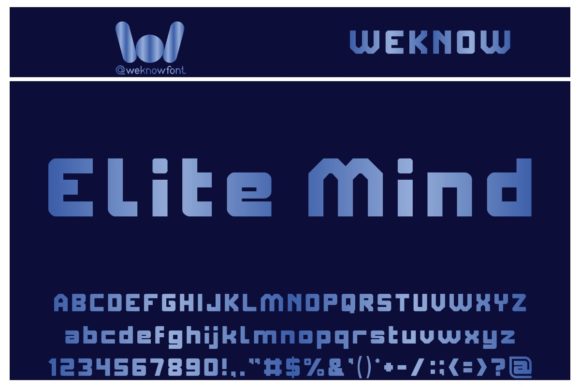
**Introducing Elite Mind: The Ultimate Font for Unleashing Your Creative Genius**
Prepare to elevate your designs to unparalleled heights with Elite Mind, a captivating display font that commands attention. This cutting-edge creation from the renowned foundry weknow embodies the essence of boldness, innovation, and boundless creativity.
Harnessing the power of technology, Elite Mind effortlessly transforms your designs into captivating masterpieces. Its sharp angles and dynamic curves evoke a sense of modernity and sophistication, leaving a lasting impression on every beholder.
Whether you're crafting eye-catching logos, captivating headlines, or creating a distinct brand identity, Elite Mind seamlessly adapts to your every need. Its versatility knows no bounds, empowering you to inject a touch of daring into any design project, be it in the realm of fashion, entertainment, or digital media.
Step into the spotlight with Elite Mind and experience the thrill of creating designs that resonate with your audience, leaving them spellbound and yearning for more. Embrace the future of typography and elevate your creative vision to new dimensions.
**Reasons Why Elite Mind is a Must-Have for Your Creative Arsenal:**
* **Unleash Your Imagination:** Elite Mind liberates your creativity, inviting you to explore uncharted territories of design and express your unique style with unparalleled freedom.
* **Stand Out from the Crowd:** Its bold and distinctive character ensures that your designs break free from the mundane, grabbing attention and leaving an unforgettable mark on the minds of your audience.
* **Versatile and Adaptable:** Effortlessly adaptable to a myriad of design styles, Elite Mind empowers you to effortlessly create stunning logos, captivating headlines, and eye-catching brand identities that resonate with your target audience.
* **Endless Applications:** Unleash your creativity across a boundless array of projects, including posters, magazines, books, websites, social media graphics, and so much more. Elite Mind empowers you to make a statement in any realm of design.
* **Unleash the Power of Design:** With Elite Mind at your fingertips, you gain the power to captivate your audience, evoke emotions, and convey your message with unparalleled clarity and impact.
**Embrace Elite Mind Today and Embark on a Creative Journey Like Never Before.**